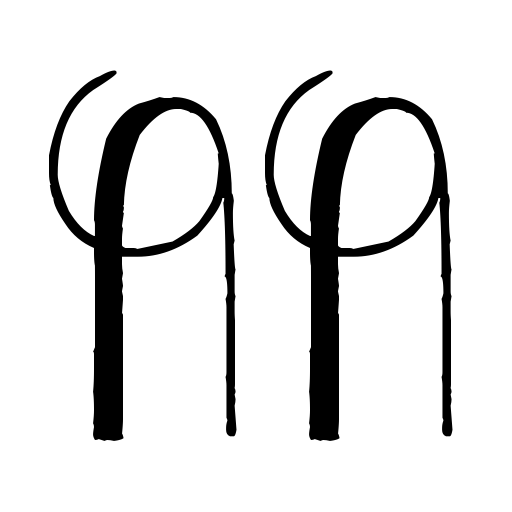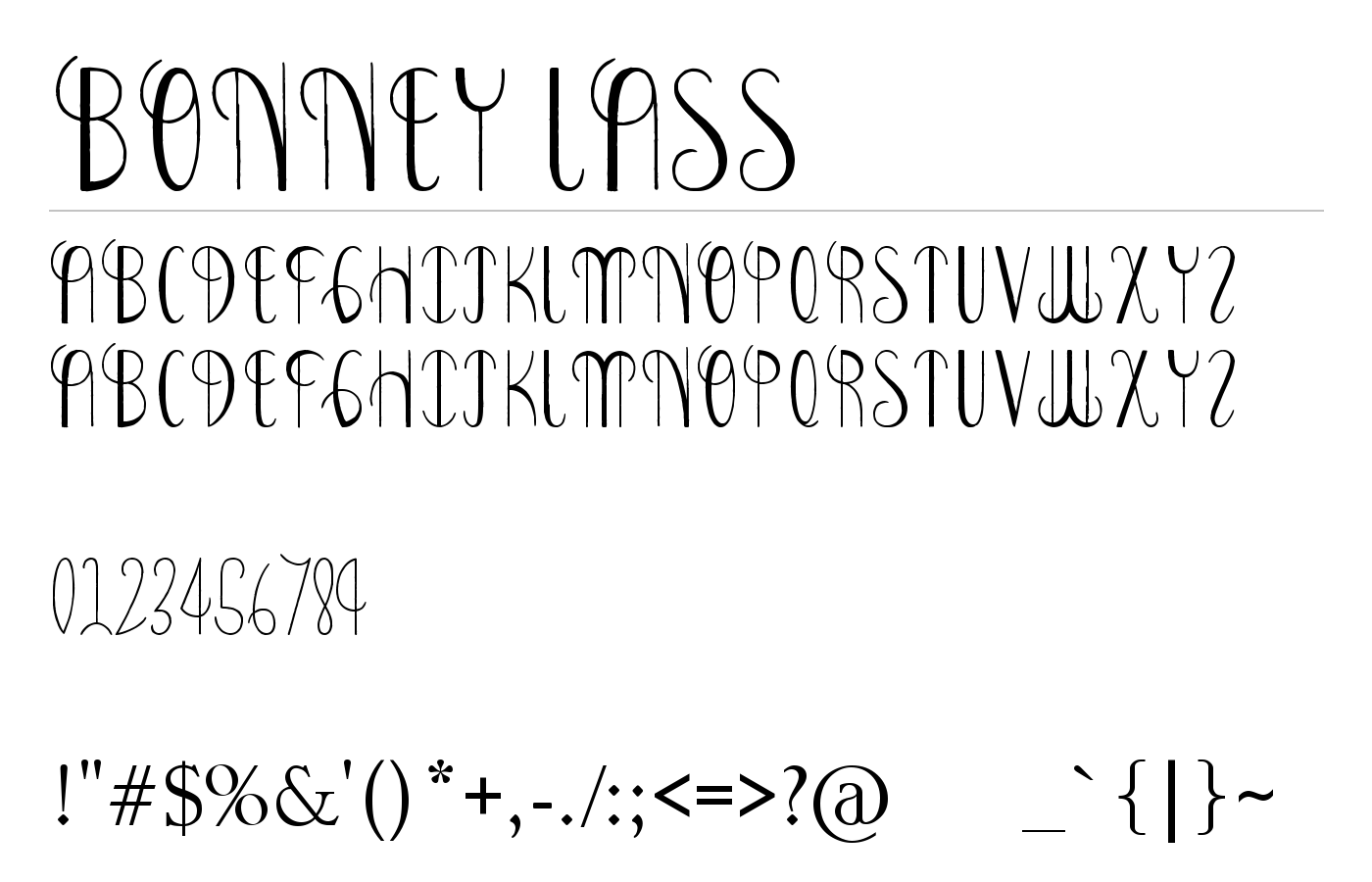
Bonney Lass is a unique, elegant serif typeface with a tall and narrow structure, featuring delicate contrast between thick and thin strokes and graceful, swirling terminals that add a whimsical, vintage charm. Its sophisticated, artsy personality suits creative, fashion-forward designs, making it perfect for logos, editorial headlines, and boutique branding where a stylish, refined look is desired. This font captivates attention with its distinctive letterforms, balancing elegance and playfulness for a memorable visual impression.
Bonney Lass Font